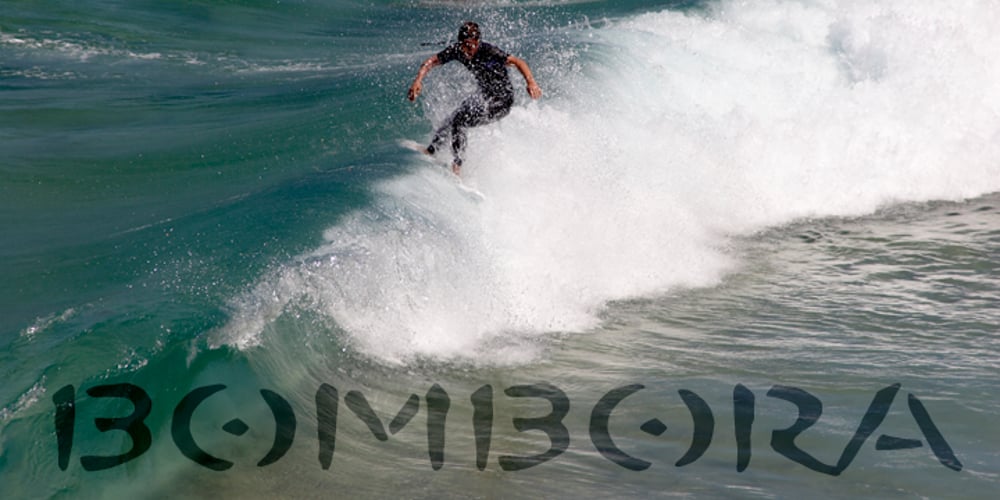
Bombora Pro Font Family was designed by Roger S. Nelsson, Brian Kent, Jan Paul and published by CheapProFonts. Bombora Pro contains 1 styles and family package options. Bombora evolved over years of designs in the world of surfing. The native name is given to massive surf building up over a reef, often dangerous, always spectacular. The font was expertly digitized by Brian Kent in New York. This font lives on the beach in a Polynesian grass hut and goes out for a surf before breakfast (o: ALL fonts from CheapProFonts have very extensive language support: They contain some unusual diacritic letters (some of which are contained in the Latin Extended-B Unicode block) supporting: Cornish, Filipino (Tagalog), Guarani, Luxembourgian, Malagasy, Romanian, Ulithian and Welsh. They also contain all glyphs in the Latin Extended-A Unicode block (which among others cover the Central European and Baltic areas) supporting: Afrikaans, Belarusian (Lacinka), Bosnian, Catalan, Chichewa, Croatian, Czech, Dutch, Esperanto, Greenlandic, Hungarian, Kashubian, Kurdish (Kurmanji), Latvian, Lithuanian, Maltese, Maori, Polish, Saami (Inari), Saami (North), Serbian (latin), Slovak(ian), Slovene, Sorbian (Lower), Sorbian (Upper), Turkish and Turkmen. And they of course contain all the usual “western” glyphs supporting: Albanian, Basque, Breton, Chamorro, Danish, Estonian, Faroese, Finnish, French, Frisian, Galican, German, Icelandic, Indonesian, Irish (Gaelic), Italian, Northern Sotho, Norwegian, Occitan, Portuguese, Rhaeto-Romance, Sami (Lule), Sami (South), Scots (Gaelic), Spanish, Swedish, Tswana, Walloon and Yapese.